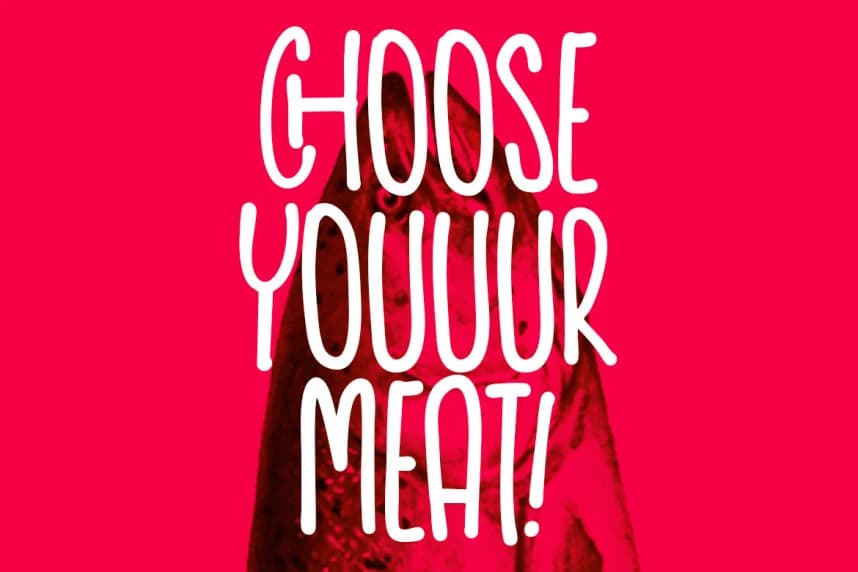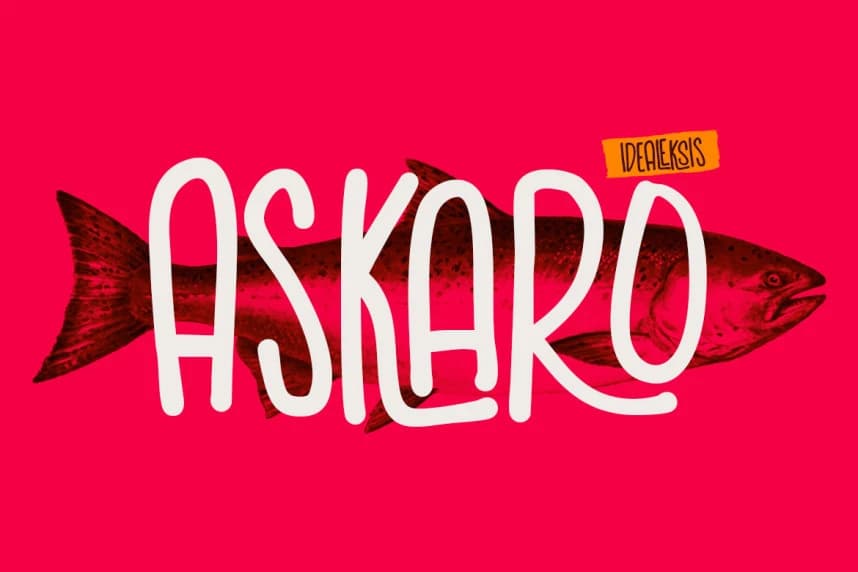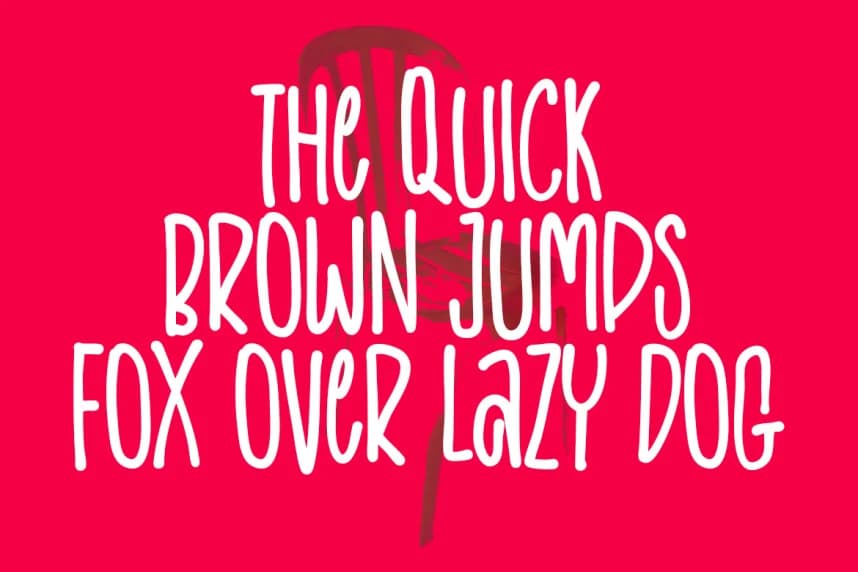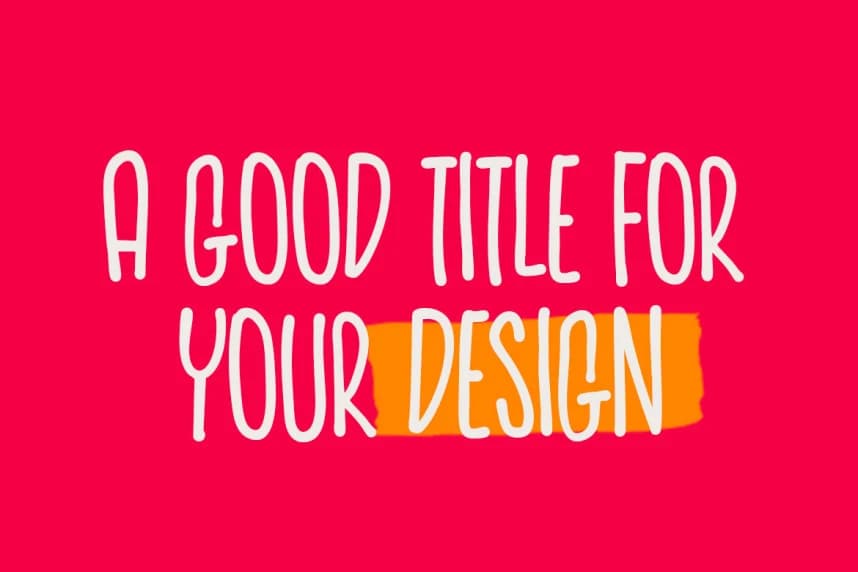
Askaro Handwritten Font - The typography features a tall, condensed handwritten style with a playful and organic energy. The strokes are relatively consistent in weight, resembling a thick felt-tip marker, with soft, rounded terminals that contribute to its friendly and approachable aesthetic.